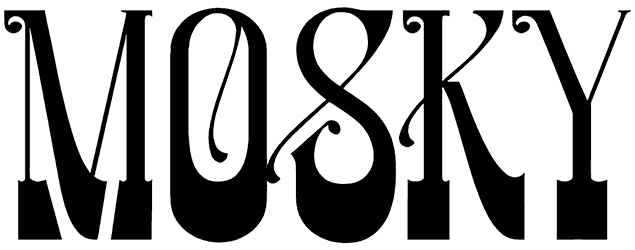
House Decor Font
If you’re looking for a unique font for a while, House Decor can be the last font you check. Even among the other decorative fonts, this one sticks out with its detailed characters that look like nothing else.
Radiating traditional vibes that’ll set your art apart from the rest, this all-caps font is what your business cards and website logos need if you’re an interior designer or a craft shop owner. Just note that its symbolic characters include no digits.